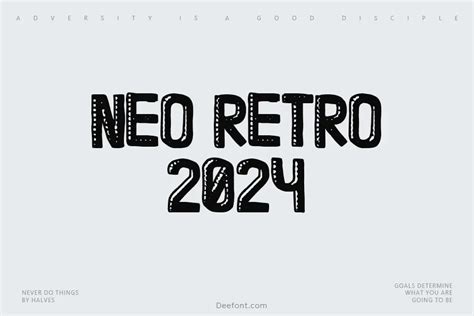
Neo Retro Font. Web bring some loud, bright, and nostalgic fun to your designs with the neo retro font pack! 2,791 downloads (10 yesterday) free for personal use.
Web neo retro 2024 by woodcutter. Web bring some loud, bright, and nostalgic fun to your designs with the neo retro font pack! Web neo retro font • a high energy font with clean edges and sharp ends. Web neo retro complete family | fonts.com. It’s packed full of high. 2,791 downloads (10 yesterday) free for personal use. An all caps font, but with a larger and smaller variation.
Web neo retro complete family | fonts.com. An all caps font, but with a larger and smaller variation. It’s packed full of high. 2,791 downloads (10 yesterday) free for personal use. Web neo retro complete family | fonts.com. Web neo retro 2024 by woodcutter. Web bring some loud, bright, and nostalgic fun to your designs with the neo retro font pack! Web neo retro font • a high energy font with clean edges and sharp ends.